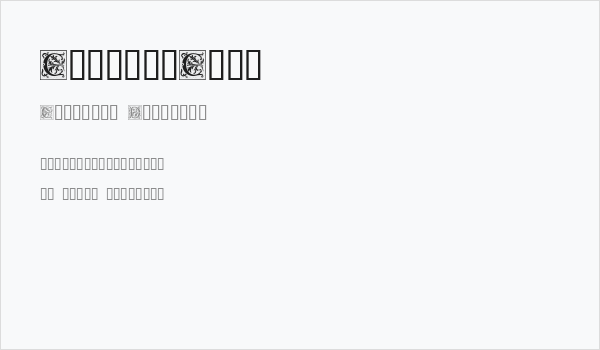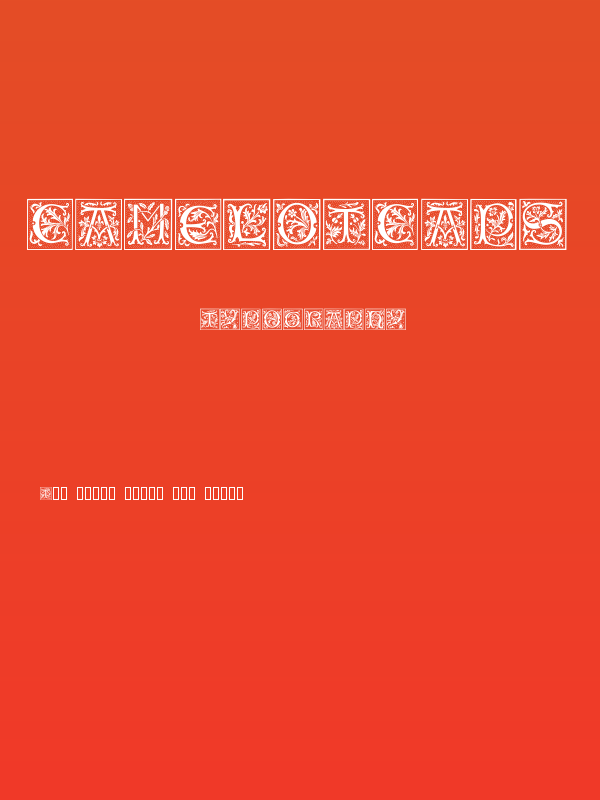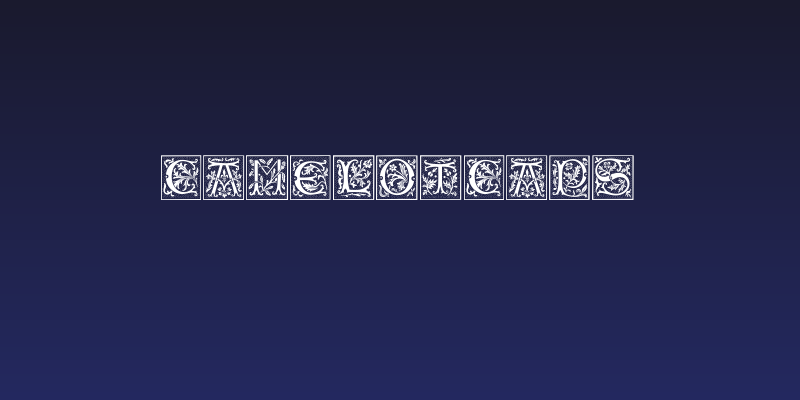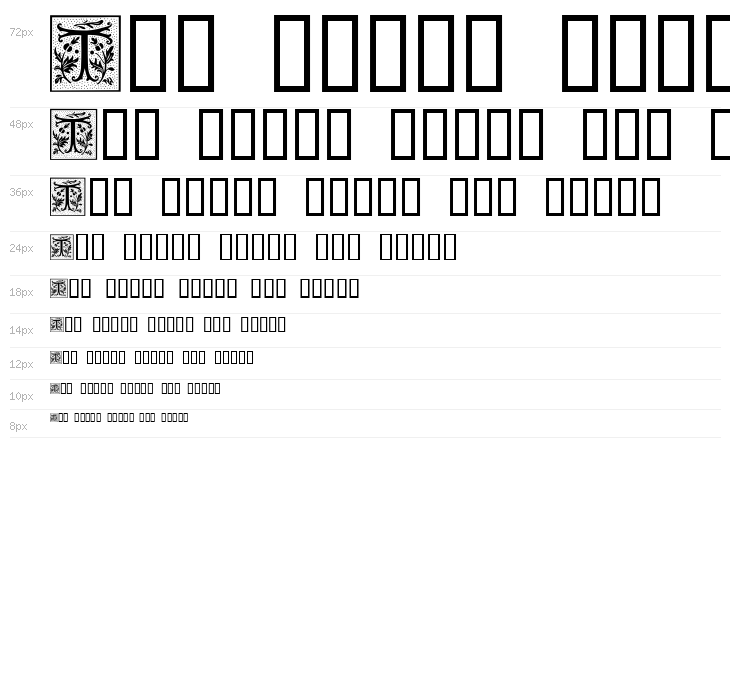
CamelotCaps Font
CamelotCaps Description
This font features ornate, decorative capital letters with intricate floral and vine patterns filling each character. The design is reminiscent of medieval manuscripts, offering a sense of elegance and historical charm. Each letter is enclosed in a square, enhancing its decorative appeal and making it suitable for artistic and vintage-themed projects. The detailed embellishments within each character create a striking visual impact, ideal for capturing attention in headlines or titles.
Overall StyleVintage
Proposed ProjectsIdeal for vintage-themed invitations, book covers, posters, and decorative signage.